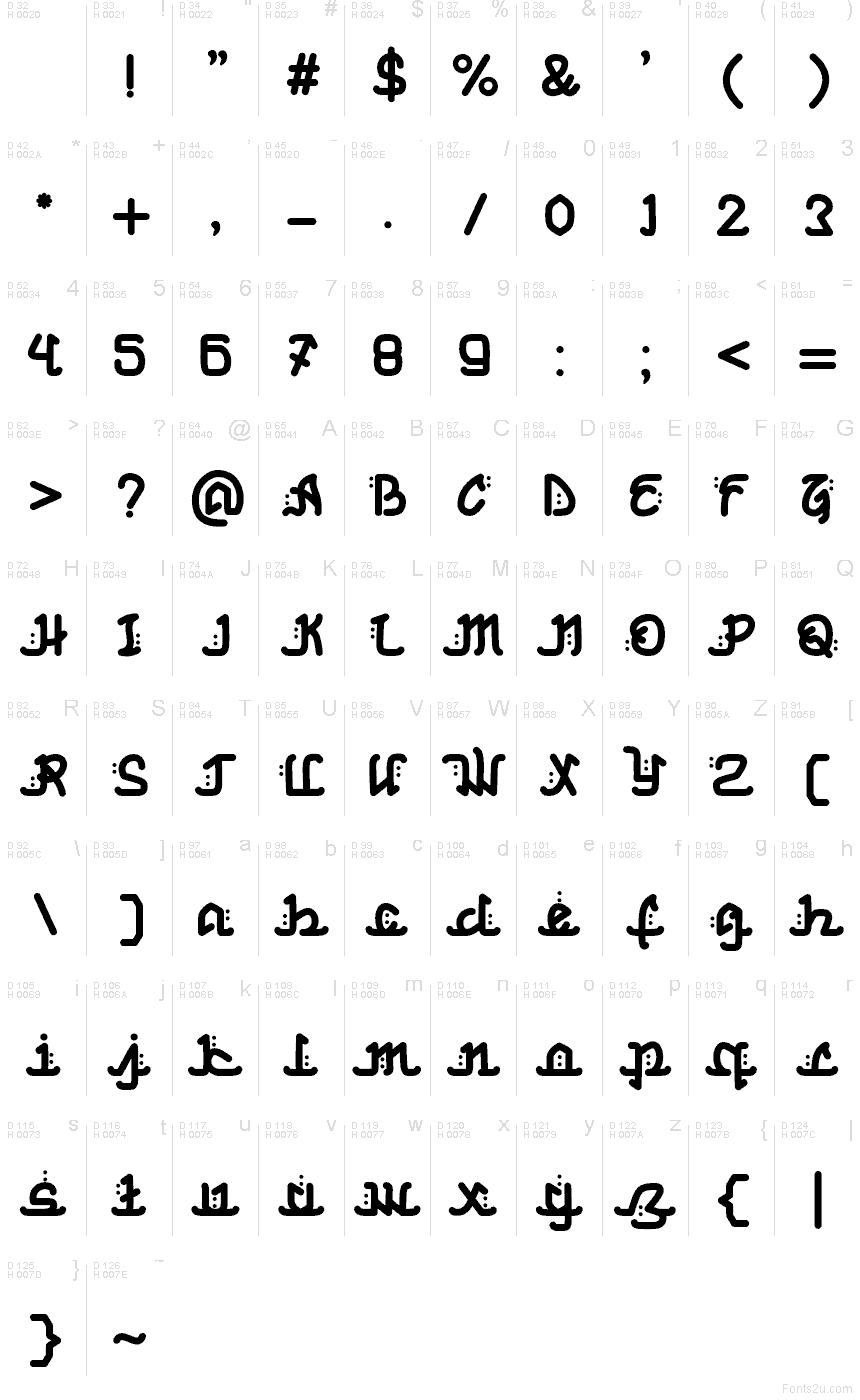
Aisyahu
Aisyahu font by Dhabee Studio is a free decorative faux Arabic typeface that instantly wraps Latin letters in a Middle Eastern-inspired rhythm. Chunky, inky strokes flow into each other like hand-painted signage, while the clustered dots add a beaded, ornamental sparkle. The letters feel tightly woven yet still readable, giving anything you set in Aisyahu a warm, market-street energy.
Using Aisyahu, this free font shines on restaurant branding, halal food packaging, Ramadan and Eid posters, hookah lounge logos, event tickets, and bold social media headers. It works best as a large headline or logotype, with a clean geometric sans-serif for body text to keep things clear and contemporary.